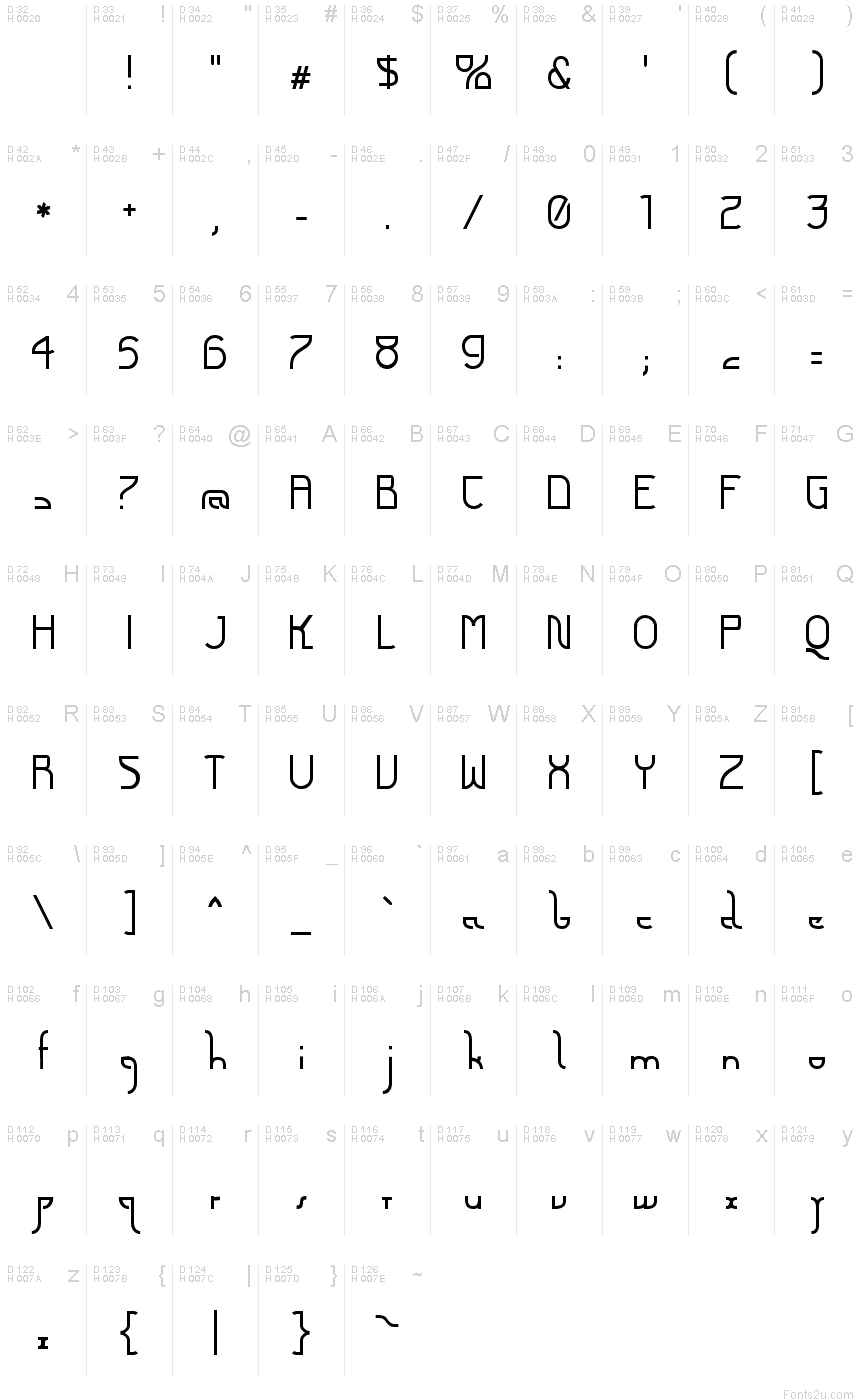
Futurex Arthur by Graham Meade, Apostrophic Laboratories and Steve Deffeyes is a free futuristic geometric sans serif with an engineered silhouette. Broad circular curves meet straight, even strokes, and letters appear cut or interrupted at their joins. The result recalls lettering built from modular parts rather than drawn with a pen.
Interface titles are its strongest use in games and science fiction, where the segmented construction echoes electronic hardware. The same machine-made forms suit technology branding and album packaging around robotics, space travel, or digital culture.